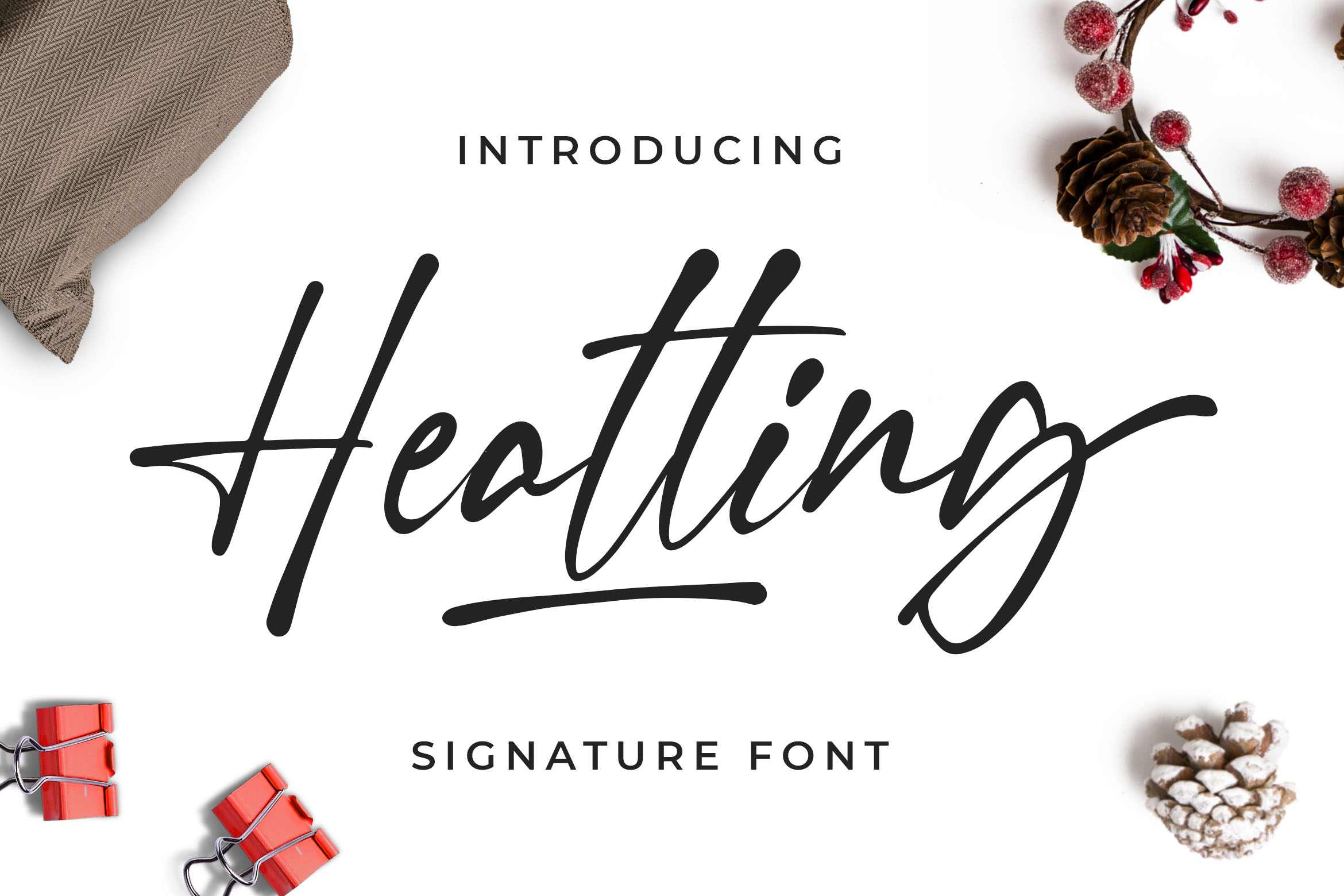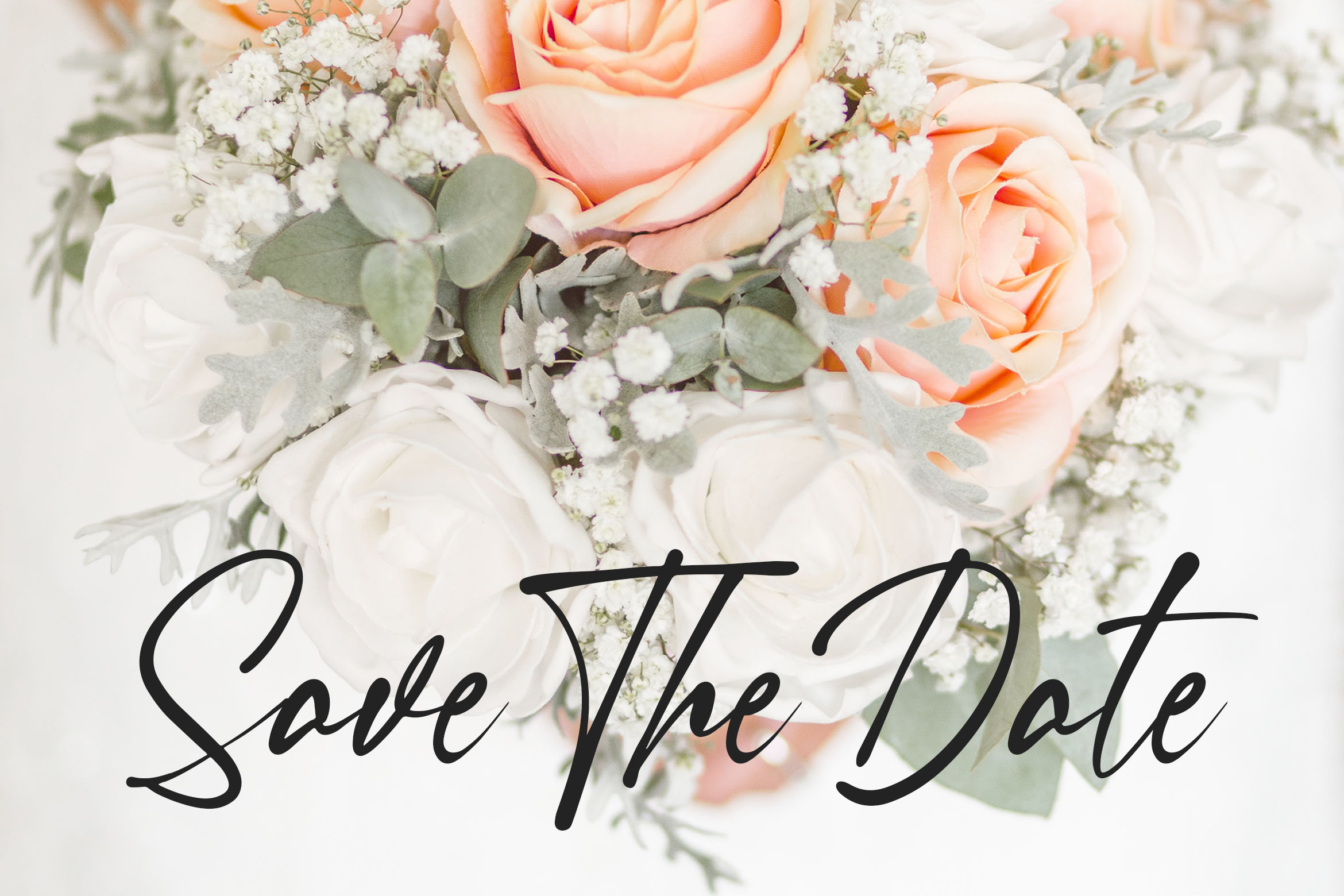
Heatting - Signature Font
Introducing of our new product the name is Heatting Signature Font. Heatting inspired by signature style this font is a fun theme very good for signature, poster, fashion, wedding, branding etc